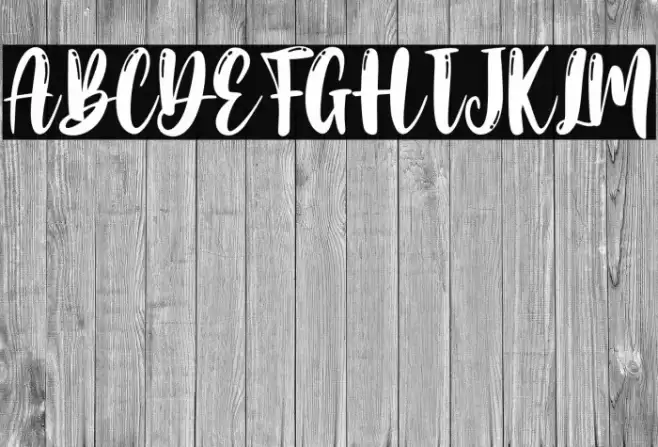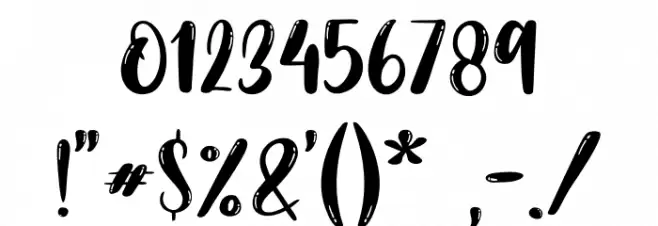
Birama Font
Birama Description
This font features a bold and expressive script style with a hand-drawn appearance. The letters are characterized by their fluid, sweeping strokes and varying thickness, giving it a dynamic and energetic feel. The uppercase letters are particularly striking, with dramatic flourishes and loops, while the lowercase letters maintain a consistent flow with elegant curves. The numbers and special characters are equally bold, maintaining the overall aesthetic. This font is ideal for projects that require a personal touch or a sense of creativity and flair.
A bold, expressive script font with dynamic, hand-drawn strokes from Uncategorized fonts.
- Font: Birama
- Proposed Projects: Ideal for branding, invitations, greeting cards, and creative posters.
- Use Case: Logos, Headlines, Invitations